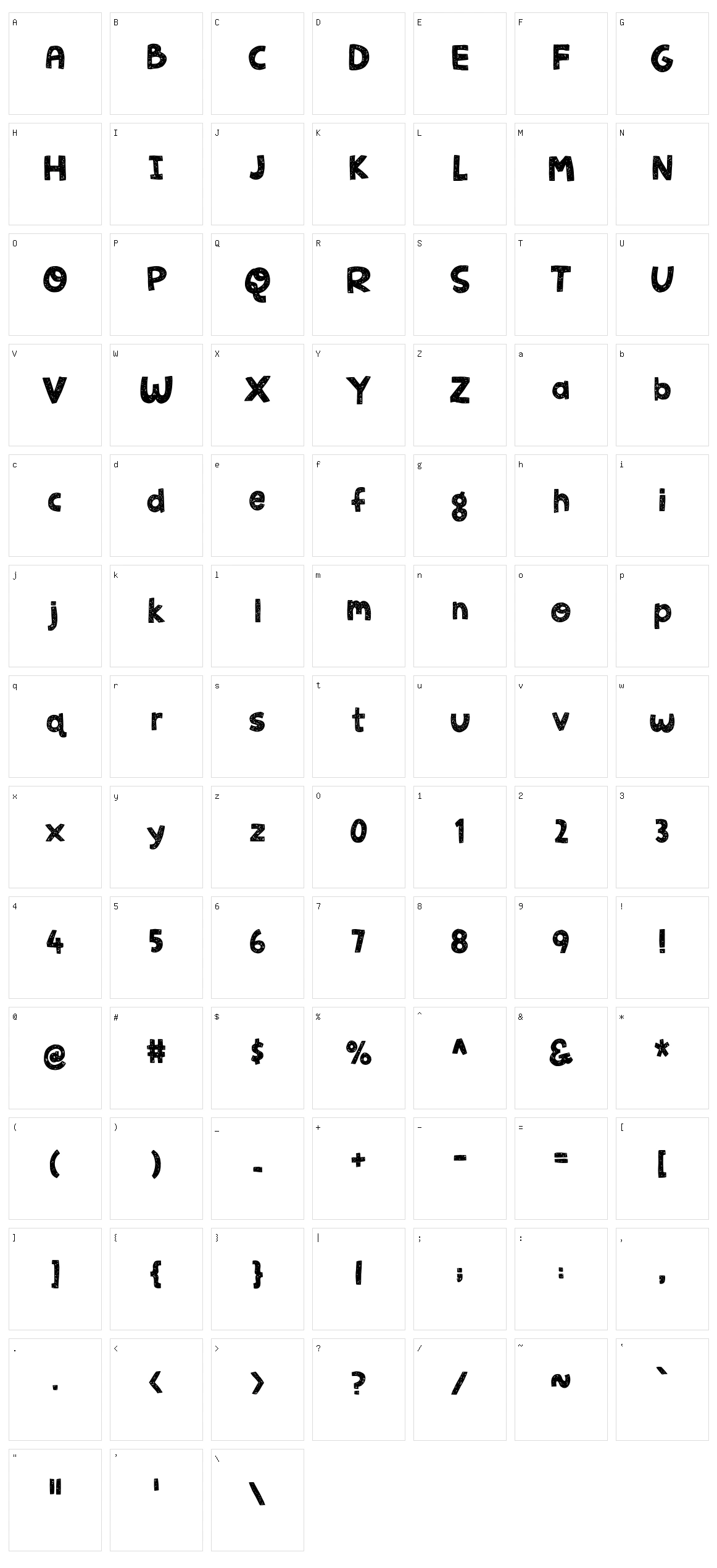
The free font Jellygurp is carefully designed by Pizzadude, showcasing a thoughtful balance of creativity and usability and falls under the Cartoon font style. When you download the ZIP file, it contains only 238.23 KB of font files, making it lightweight and quick to download. Please review the license details below to understand permitted usage and distribution rights. If license information is not available, we recommend using this font for personal projects only or contacting the author directly for commercial usage permissions.